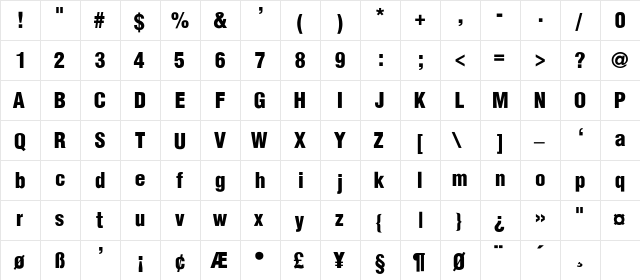
Partridge-Condensed-Black-Se Regular
Design Context for Partridge-Condensed-Black-Se Typeface
Partridge-Condensed-Black-Se offers clean, dependable letterforms without strong stylistic allegiance, making it a practical choice for designers who need flexibility. Its narrow stance lets it pack a punch even in space-constrained designs.